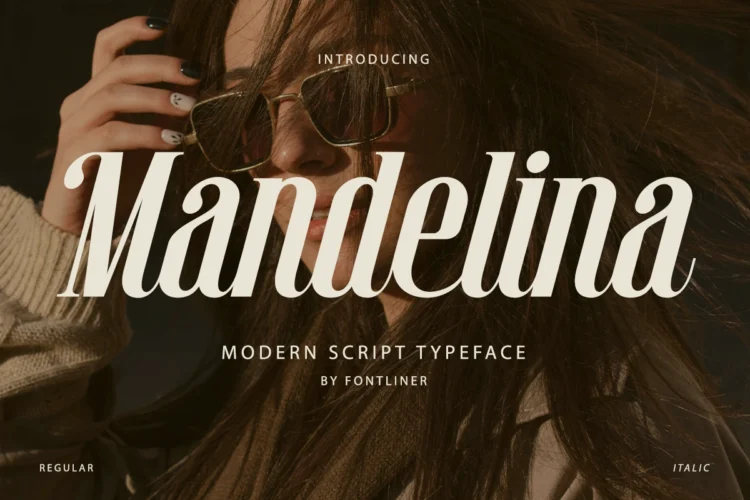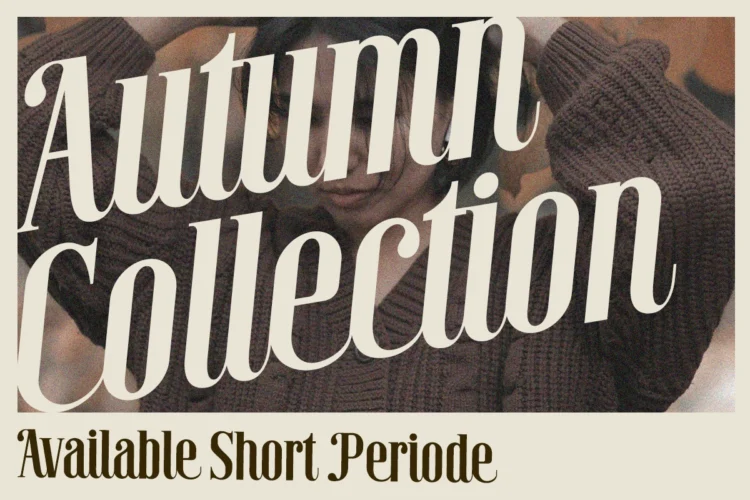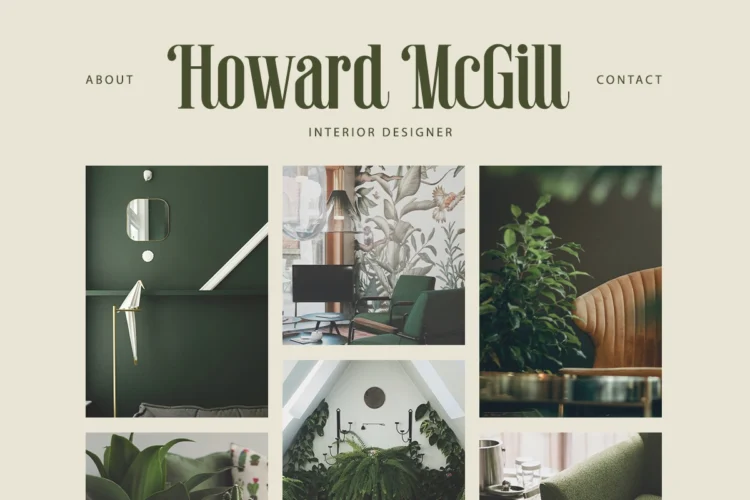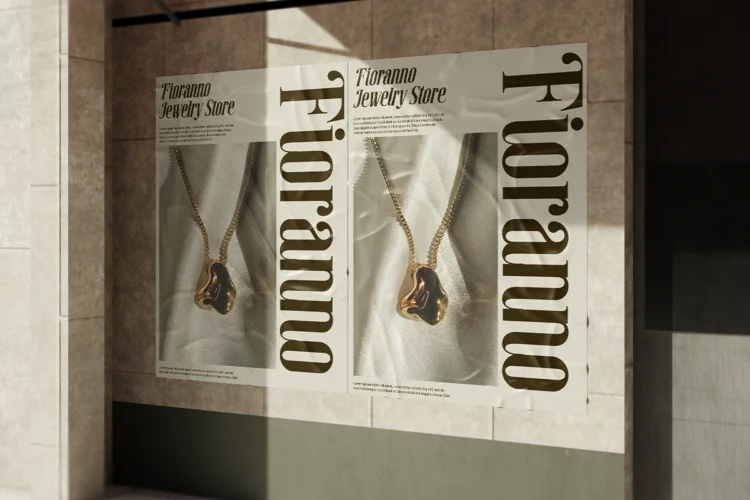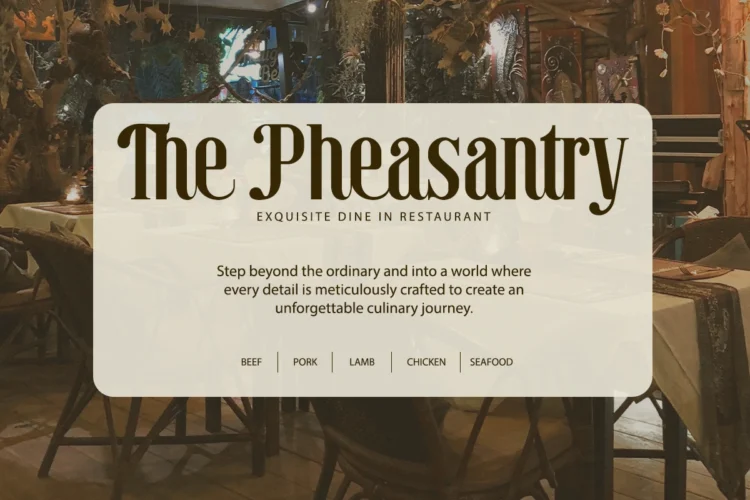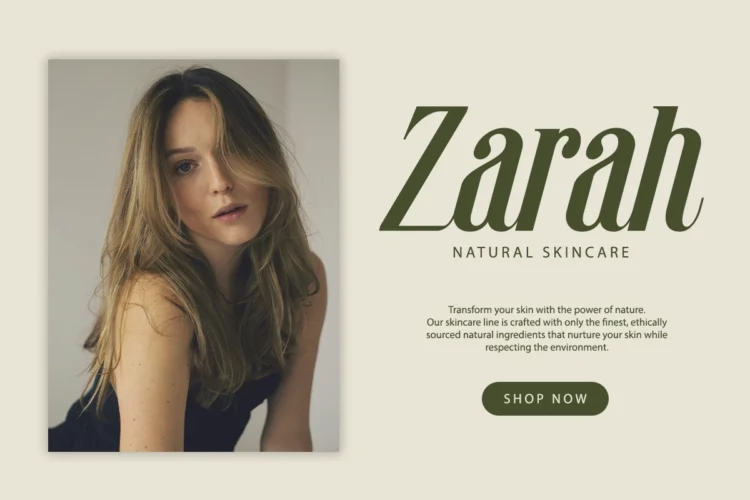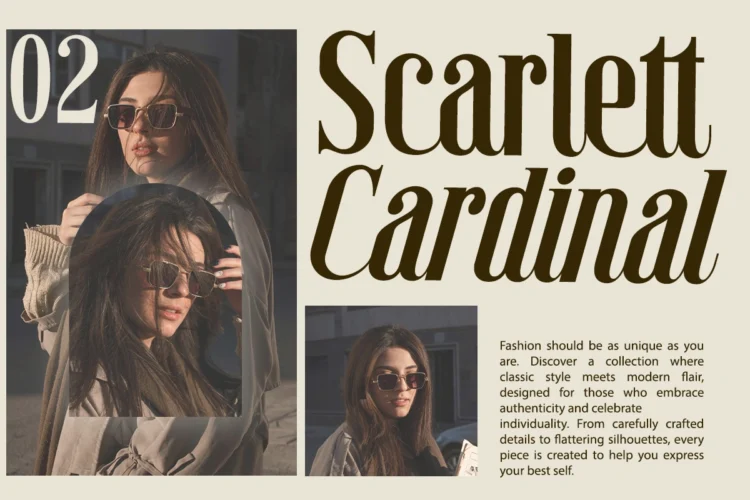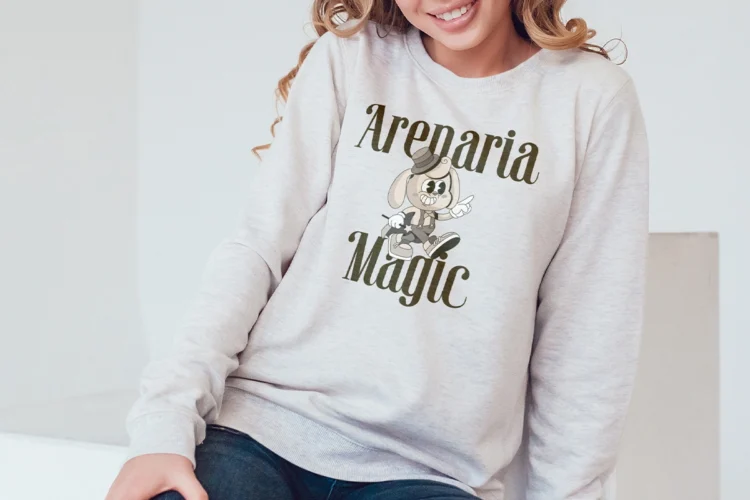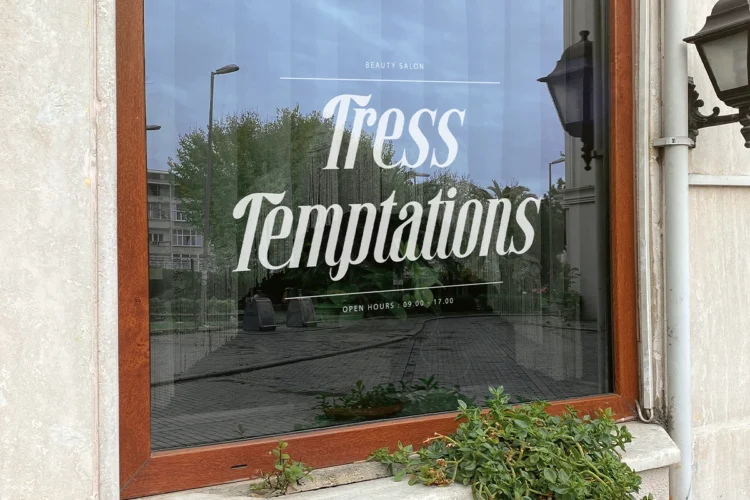
Madelina
Mandelina is a modern script fonts that connect one another with serif font characters. This font is perfect for your creative projects such as Logotype, printed quotes, invitations, cards, product packaging, letterheads, web designs, magazines, books, etc.